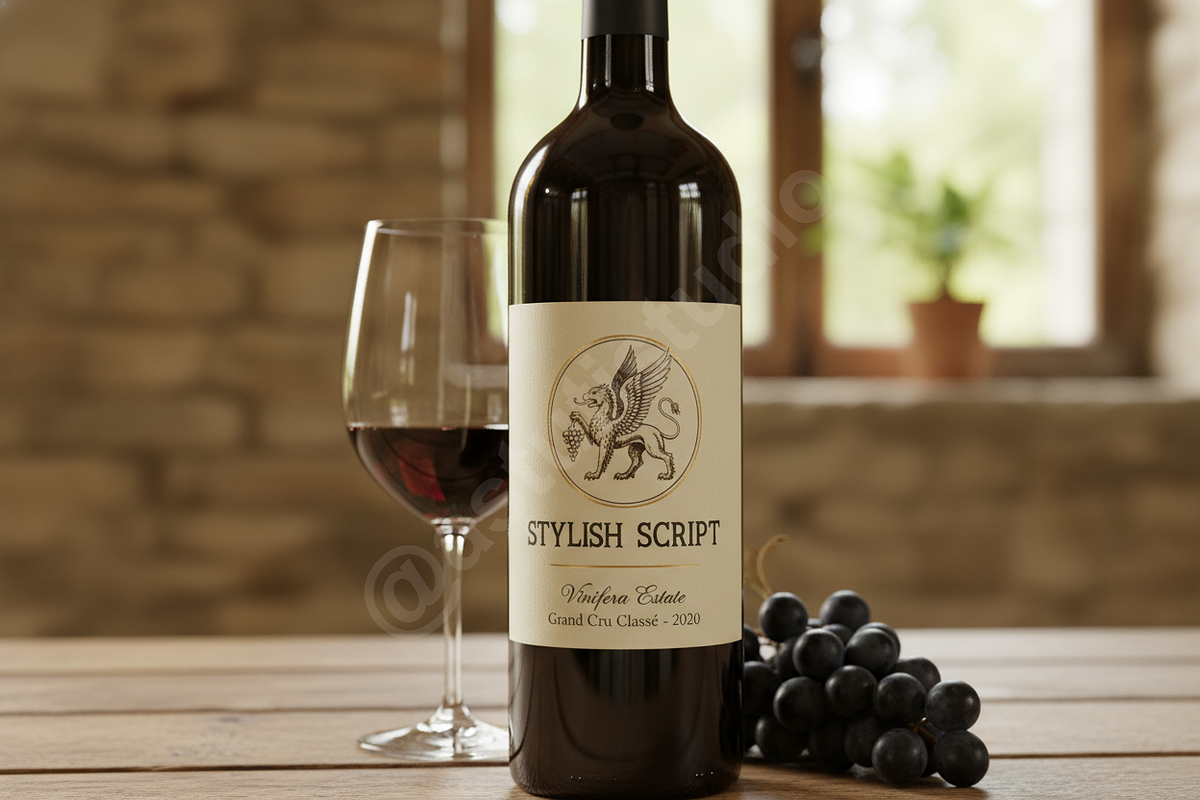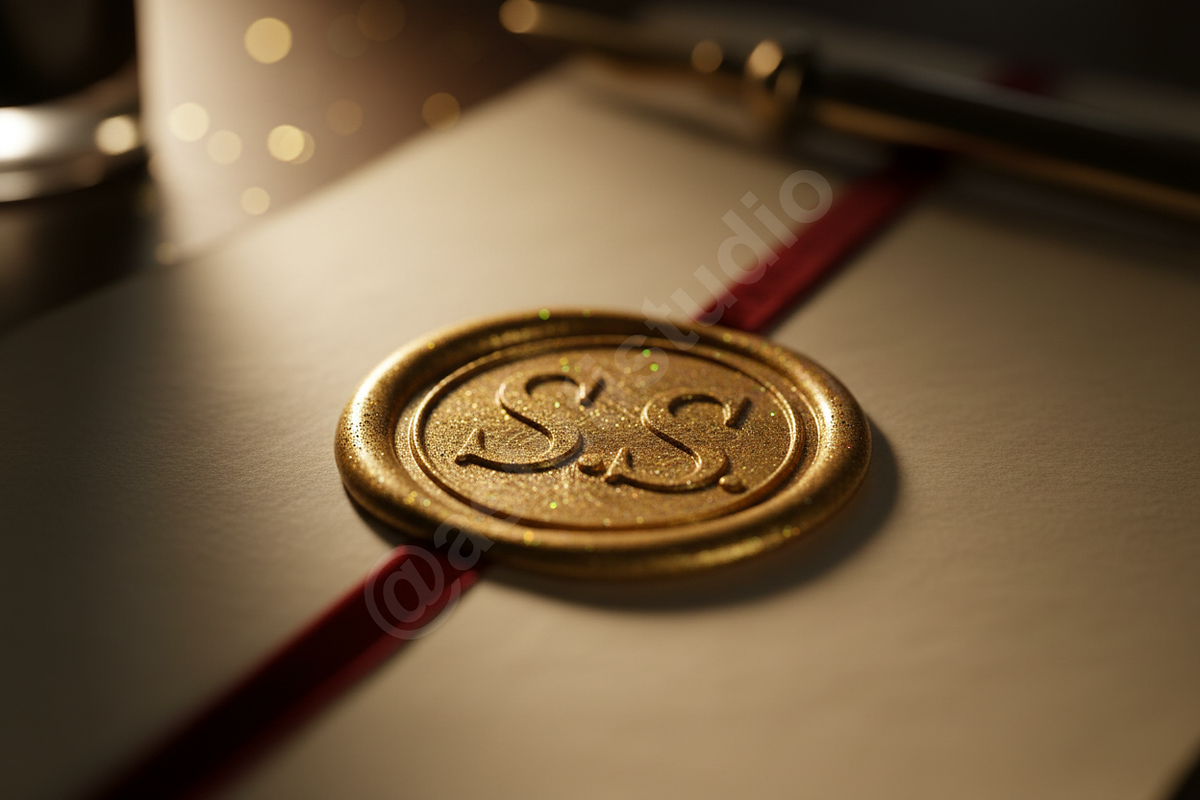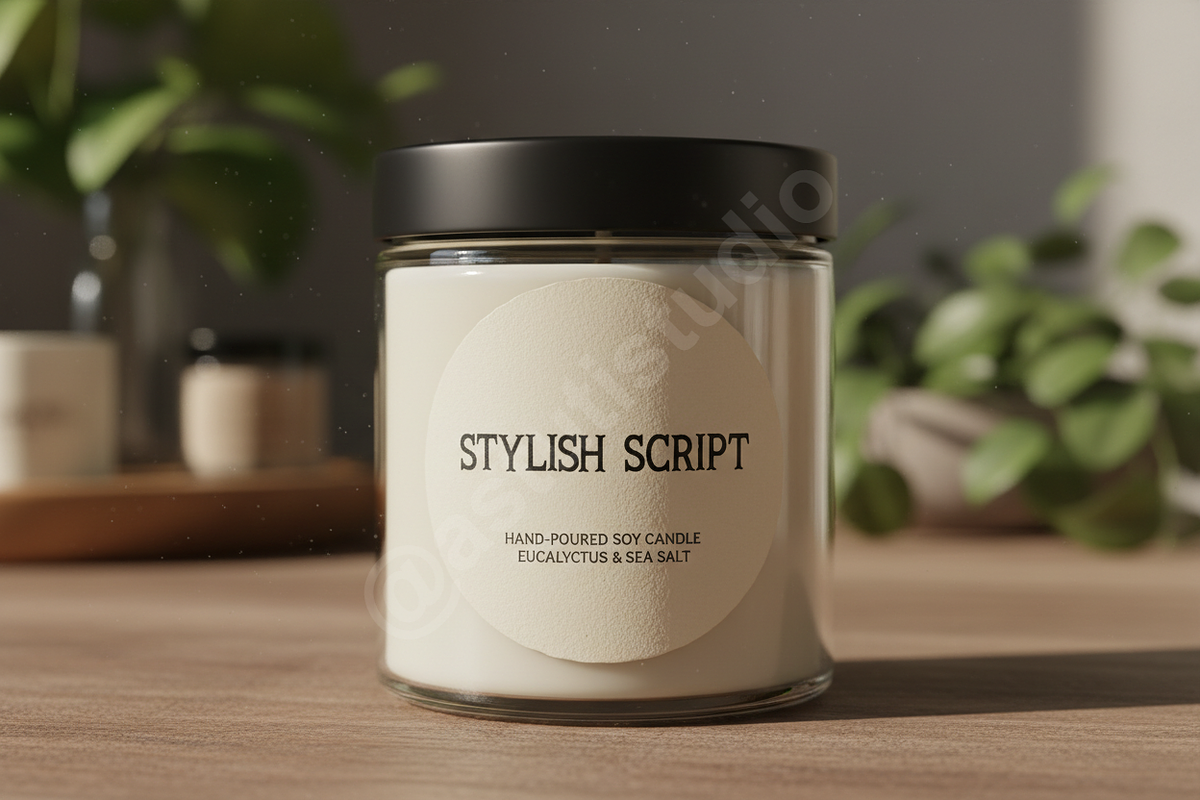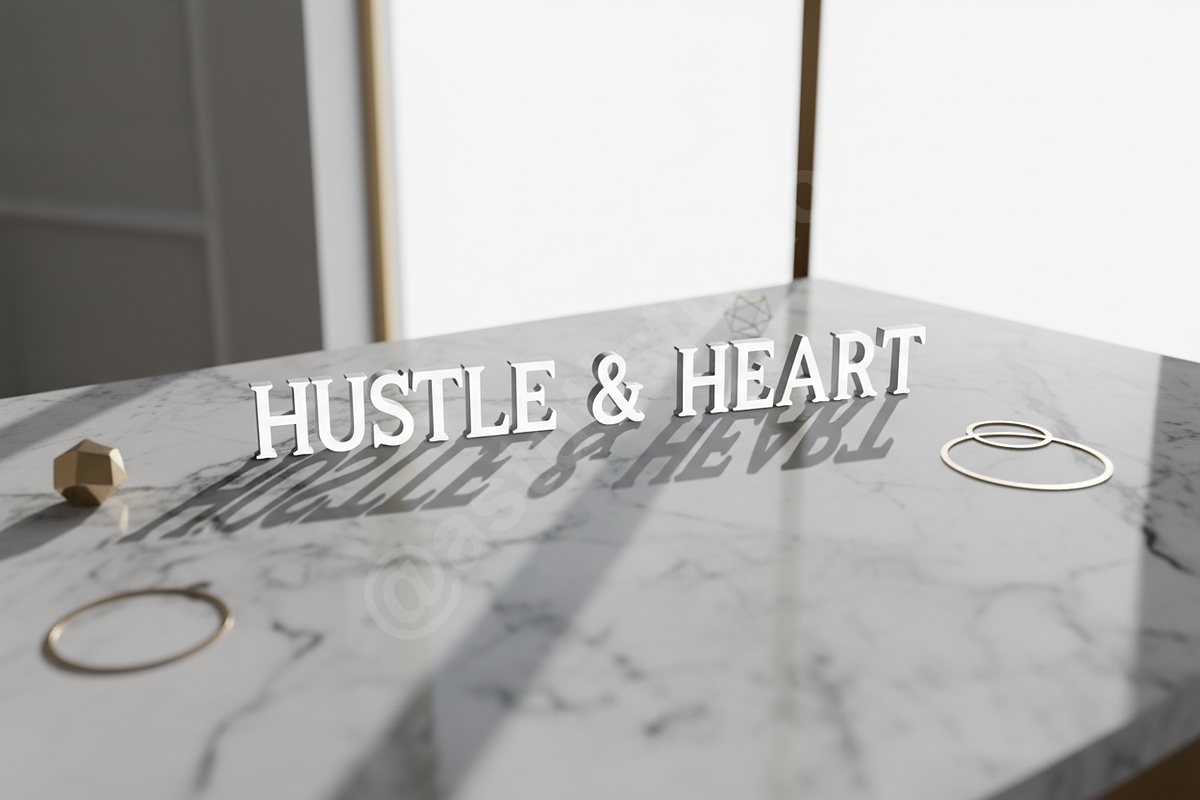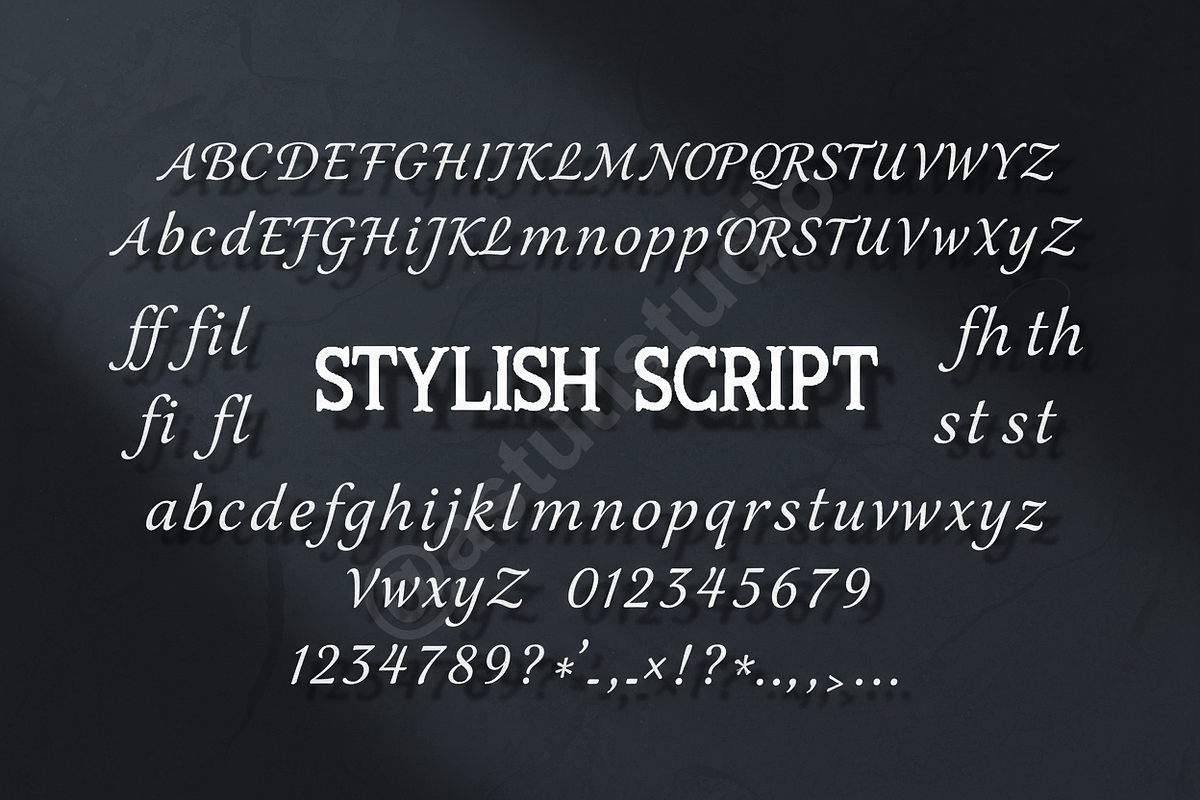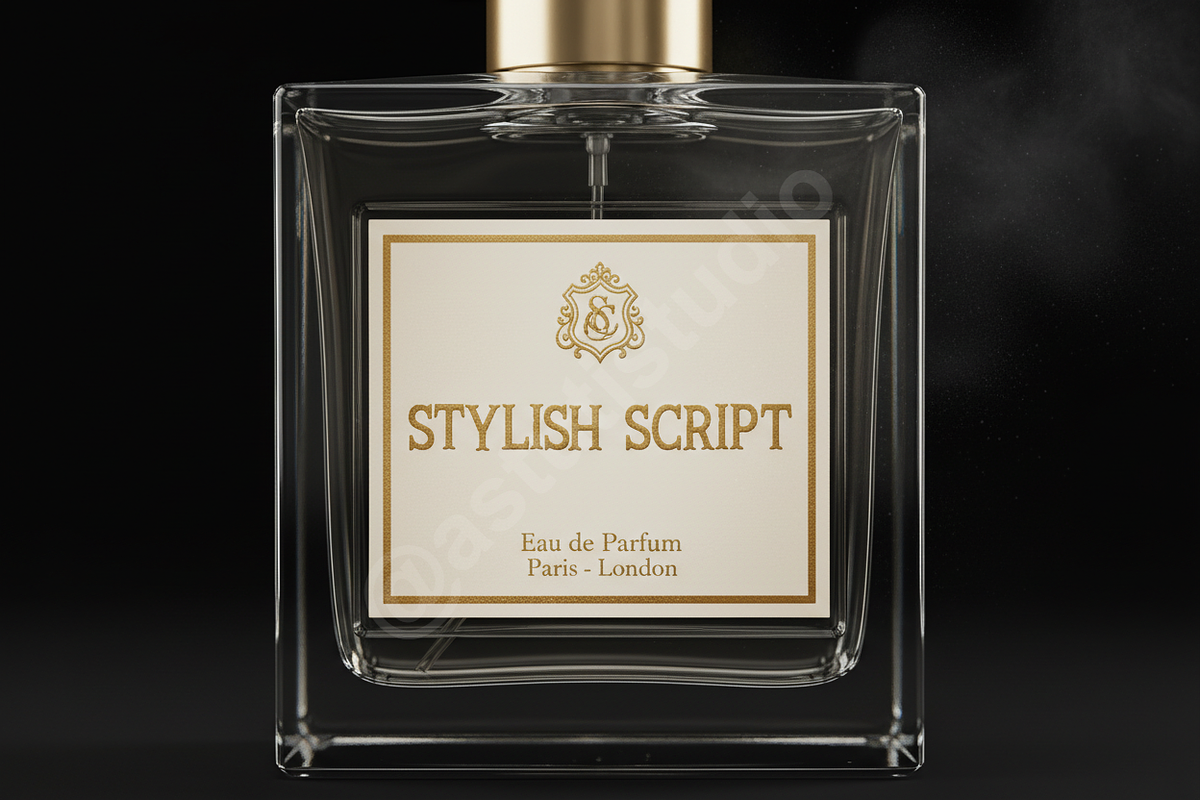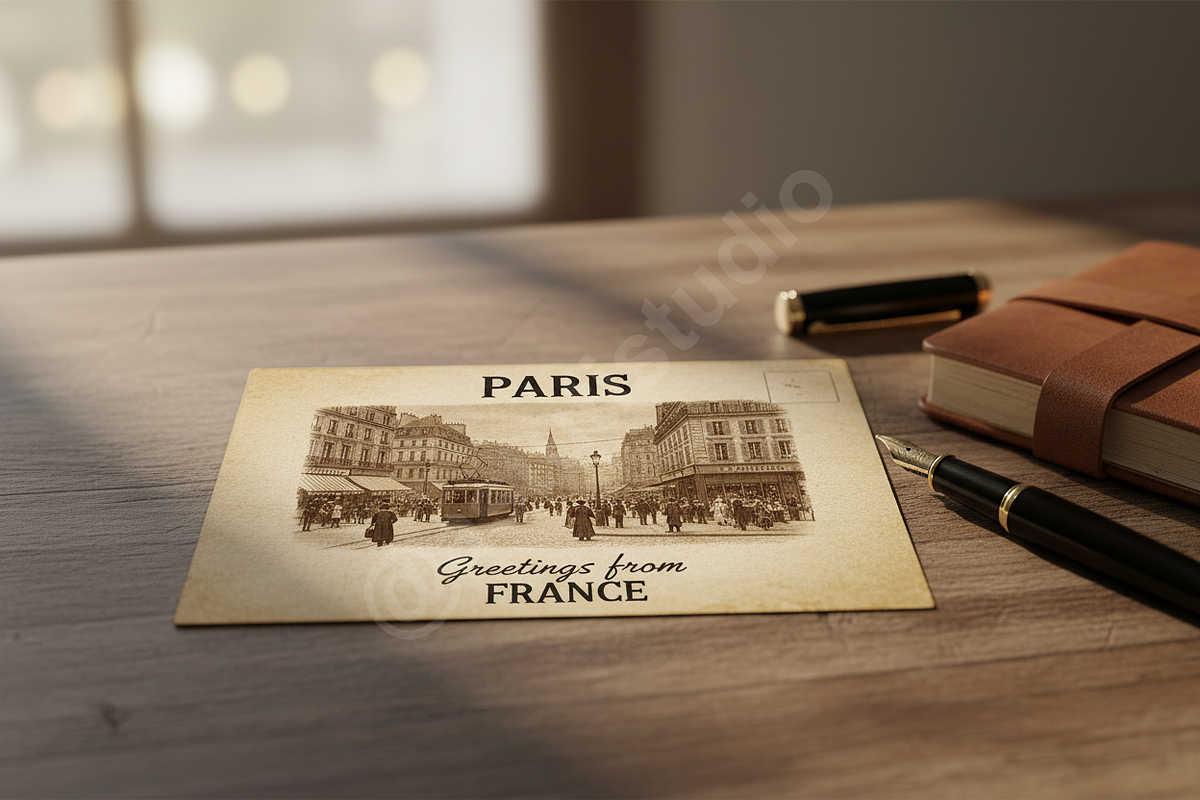
Jewete - Modern Elegant Serif Typefa
Introduction Jewete is a premium serif typeface designed for the discerning creator. Balancing timeless elegance with modern flair, this font is meticulously crafted to elevate luxury branding, high-end editorial layouts, and sophisticated social media content. Its high-contrast strokes and refined curves ensure your message is delivered with prestige and clarity.
- Distinctive character shapes with high contrast for a luxury feel
- A comprehensive set of ligatures and stylistic alternates
- Full multilingual support for global versatility
- Precision-engineered kerning for professional-grade readability
- Versatile application for digital and print media
- Full uppercase and lowercase character sets
- Numbers, punctuation, and accented characters